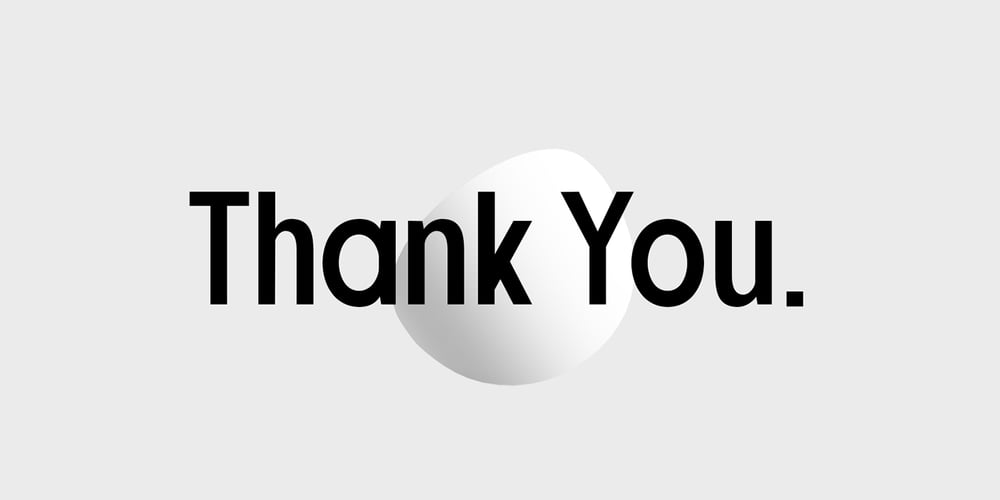
Retroyal Font Family was designed by M Akmal and published by Mega Type. Retroyal contains 12 styles and family package options. Retroyal is an sans serif typeface that boasts beautiful lines & minimalis style. With 7 weights plus matching italics. Simple geometry and with humanist nuance that adds warmth. t’s a perfect choice for branding, magazines, posters, advertising, packaging, headlines, logos, web, print etc. If you need help or have any questions, please contact me by e-mail “megatype04@gmail.com” I’m happy to help 🙂 Thanks & Happy Designing!